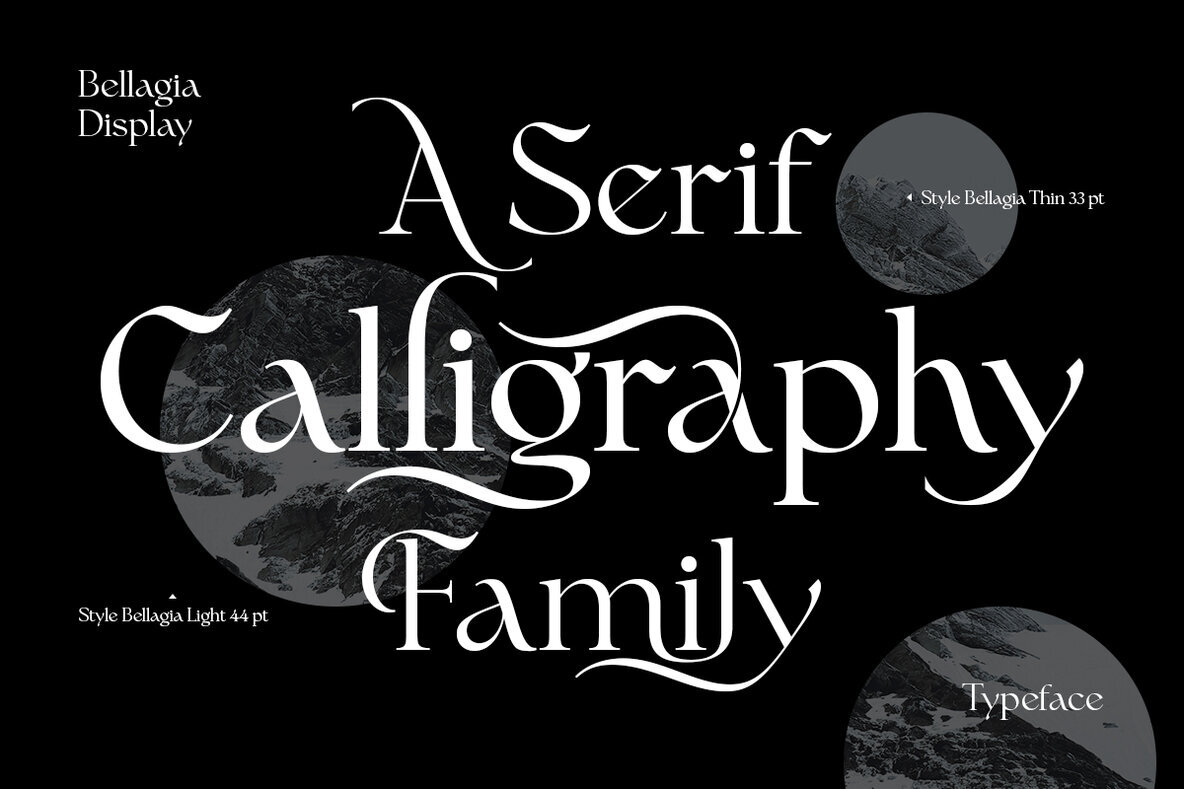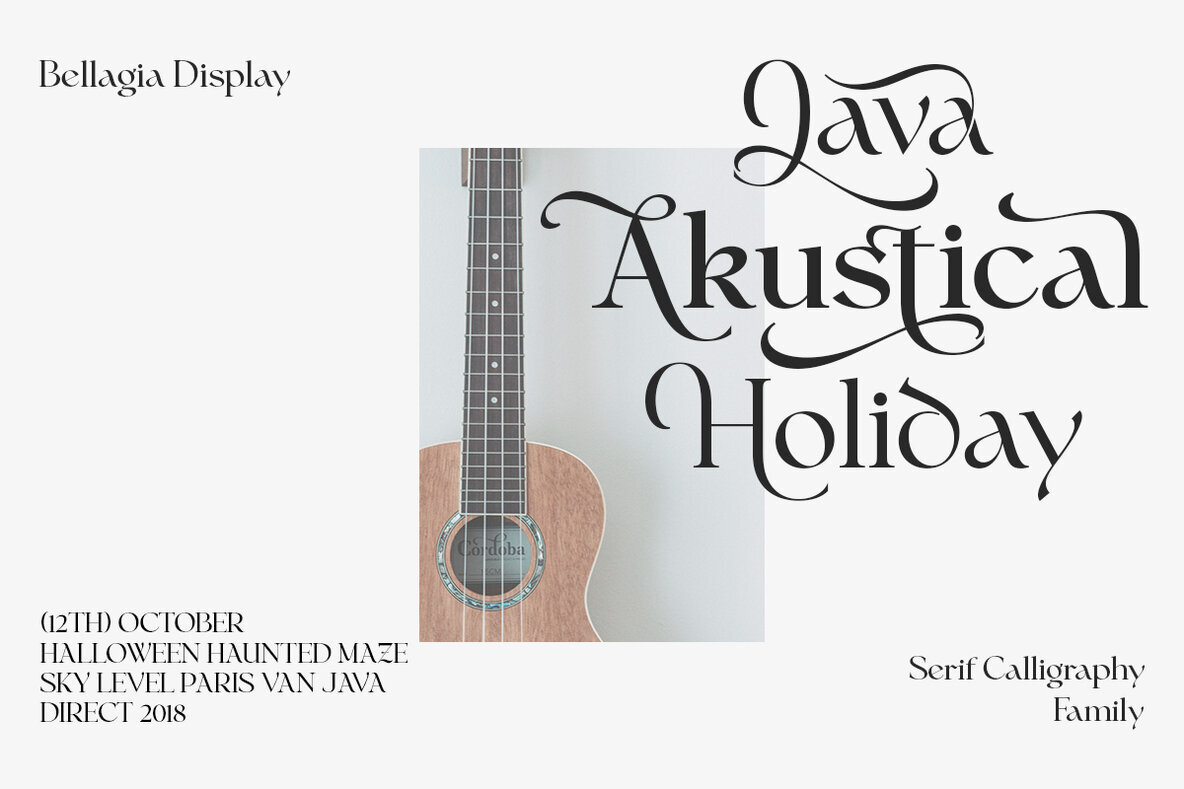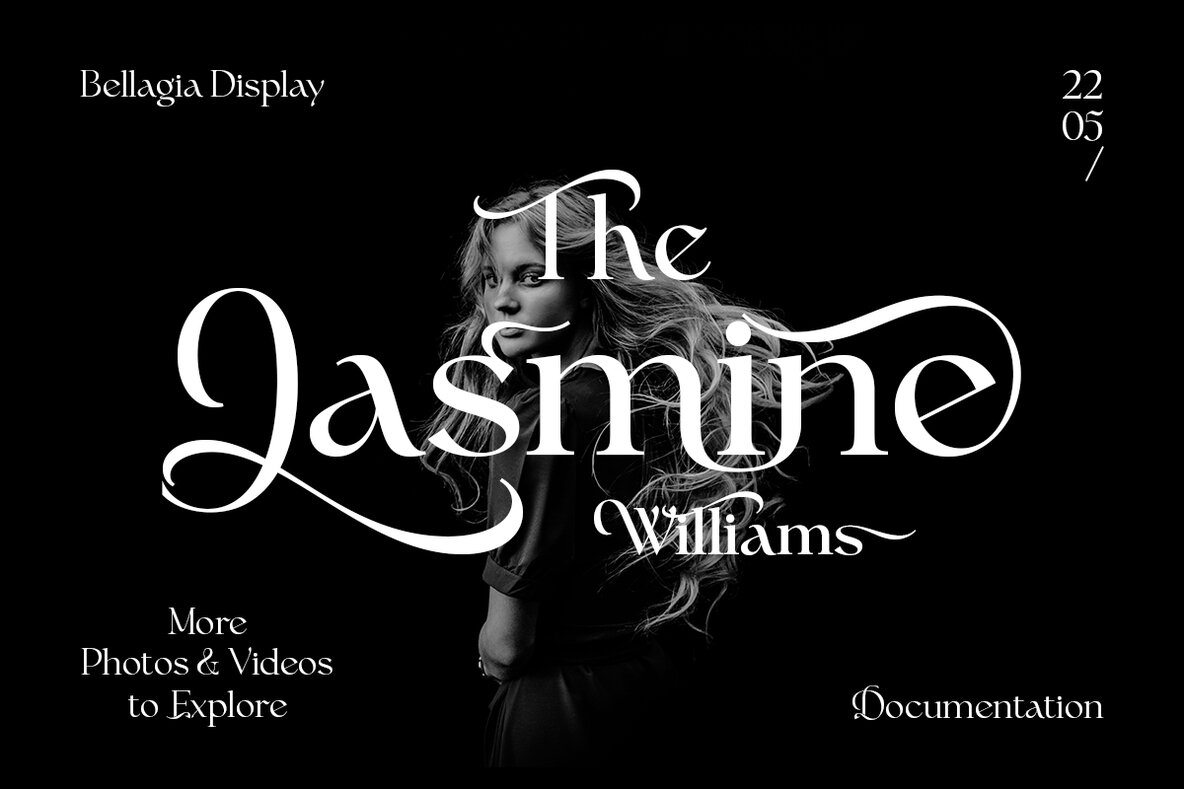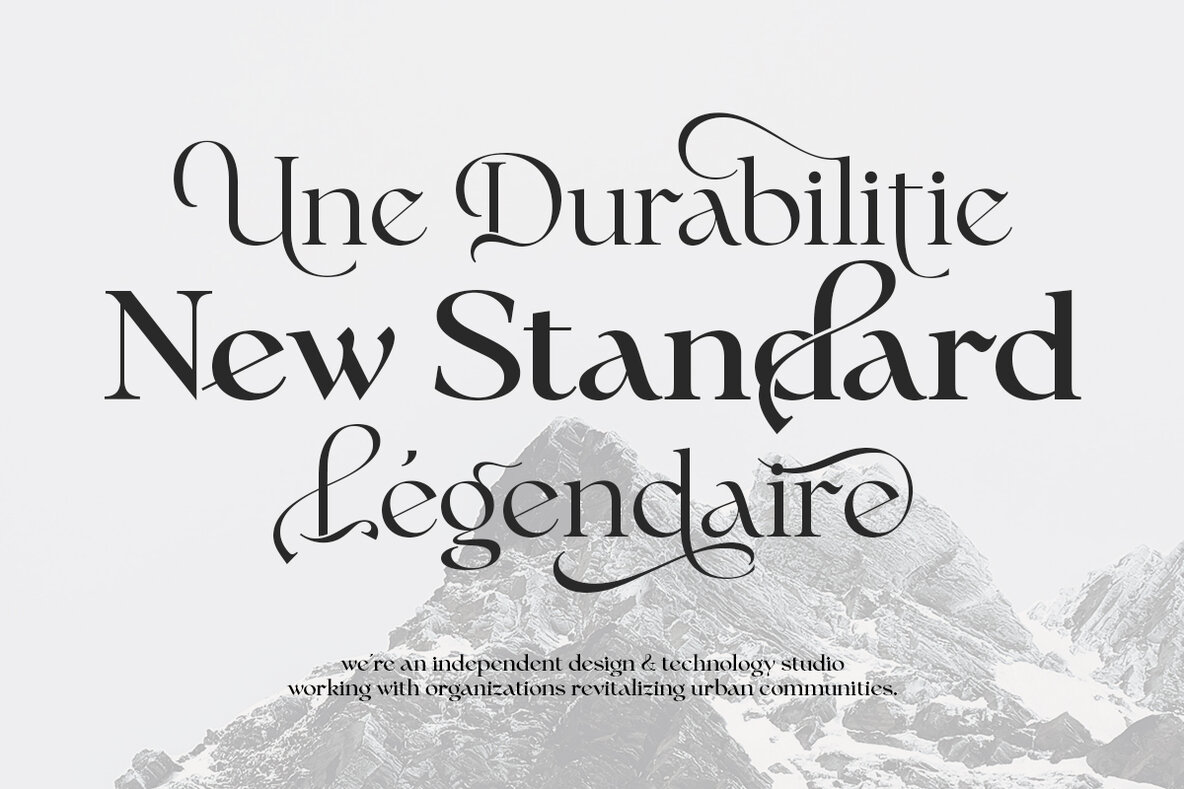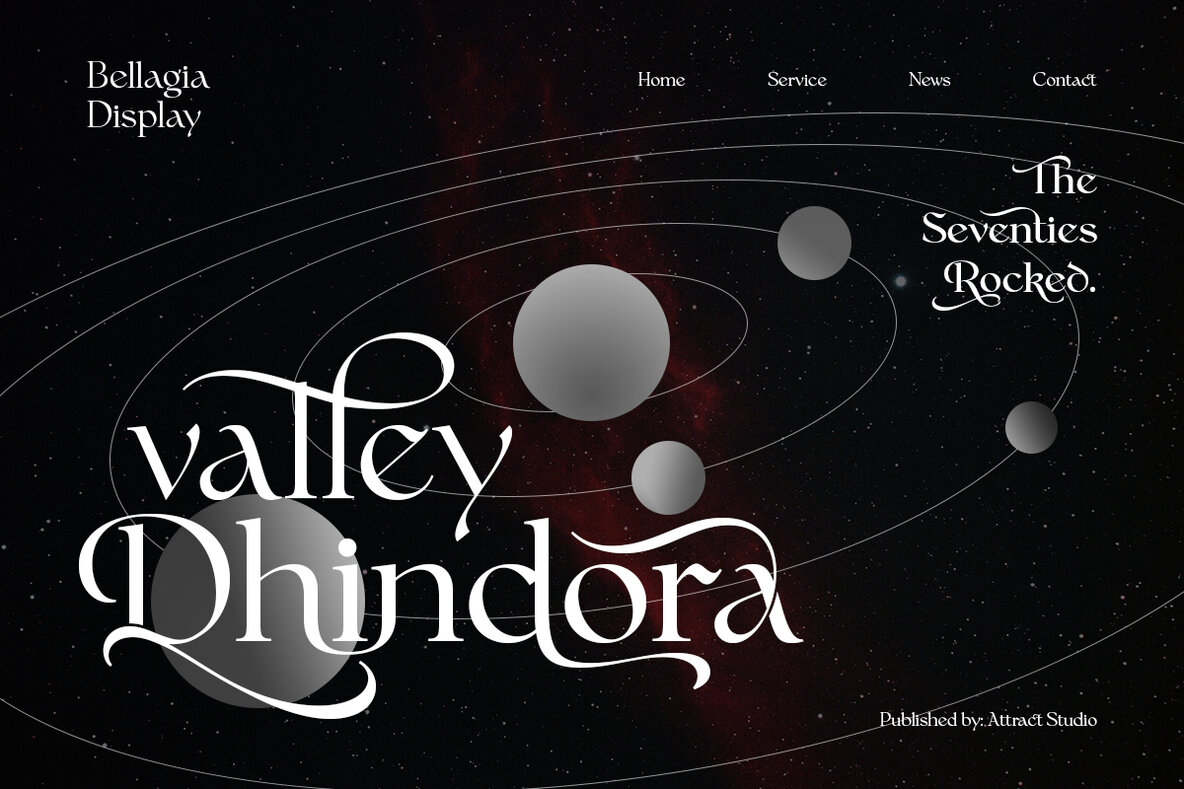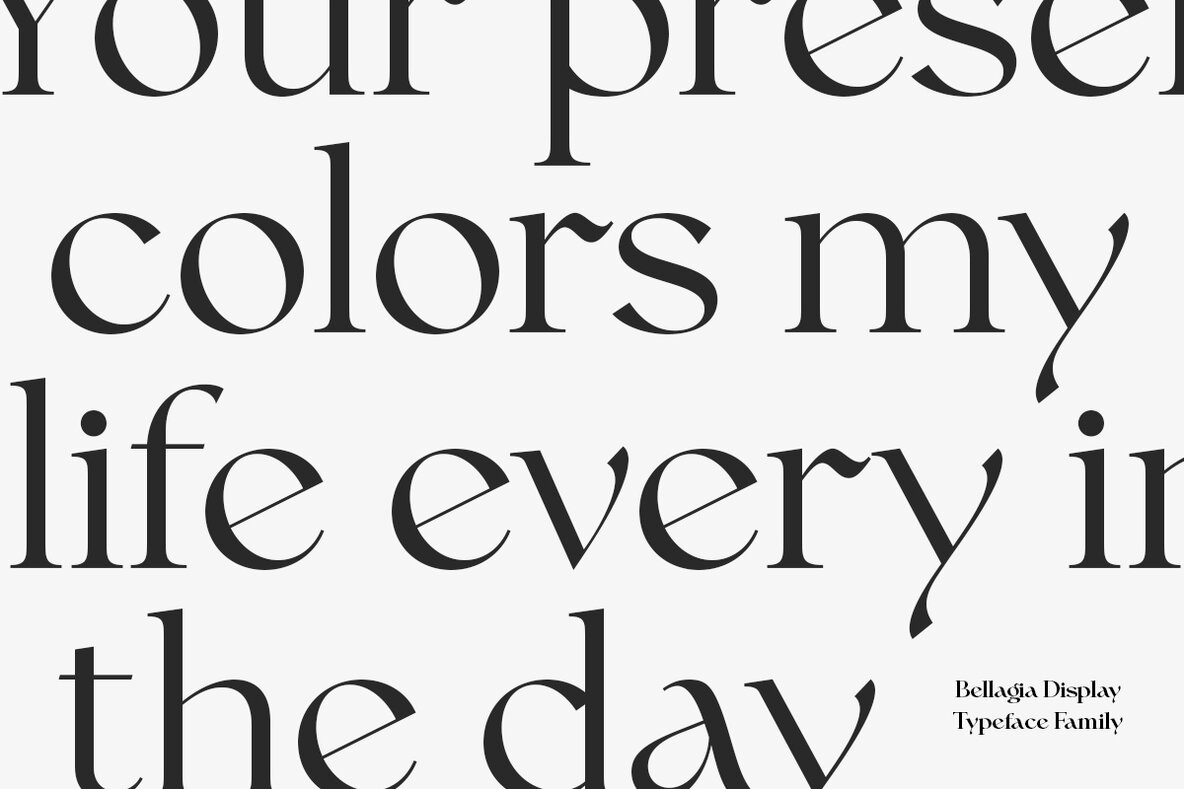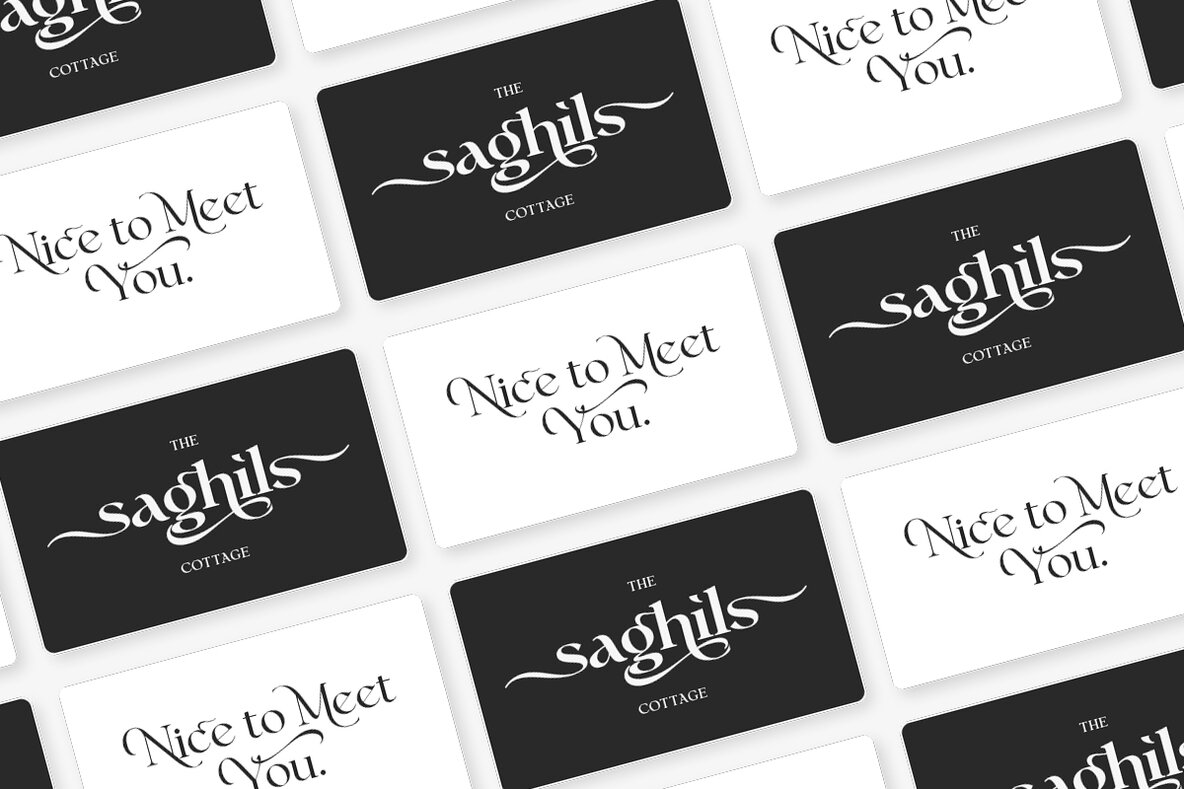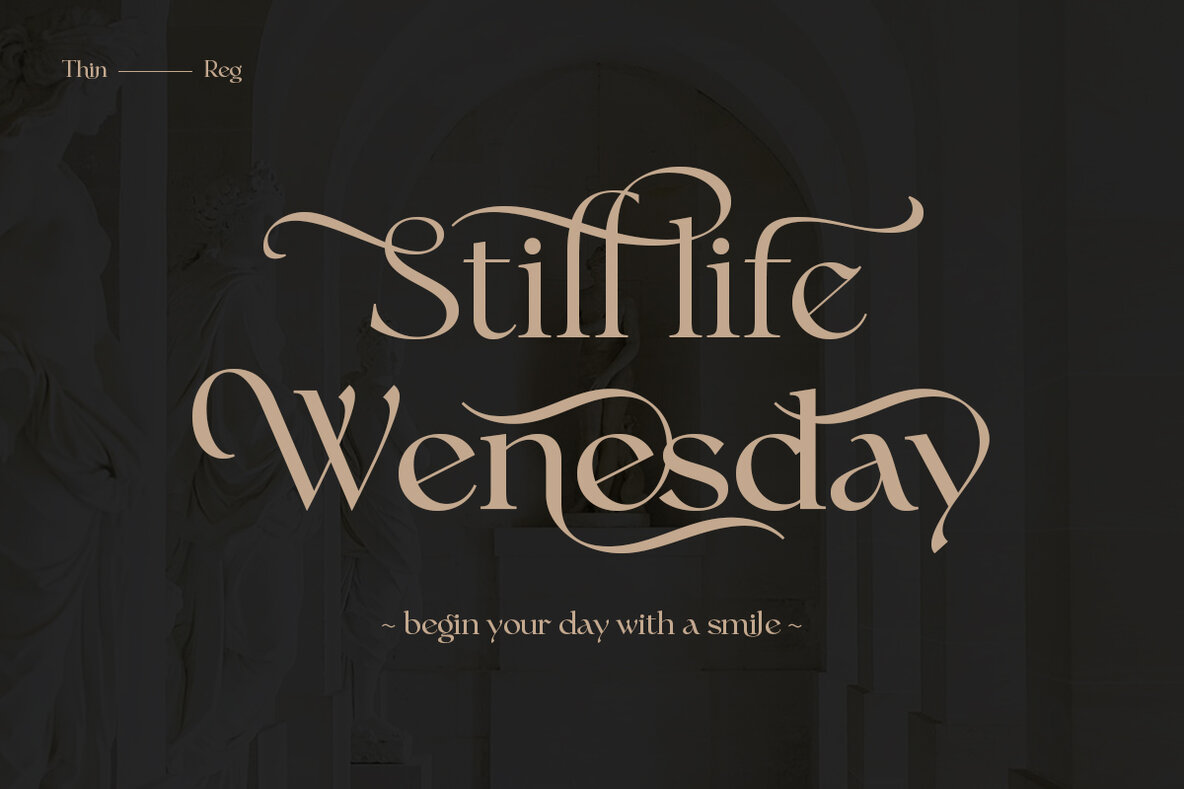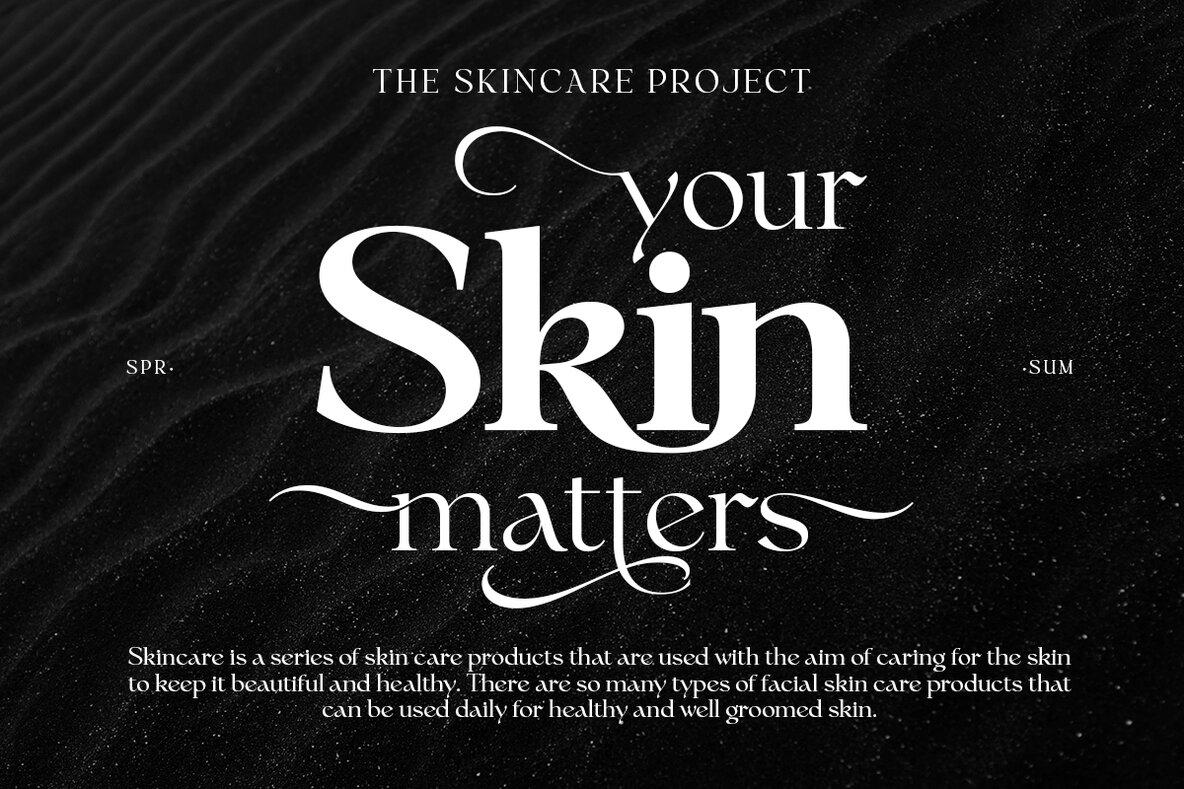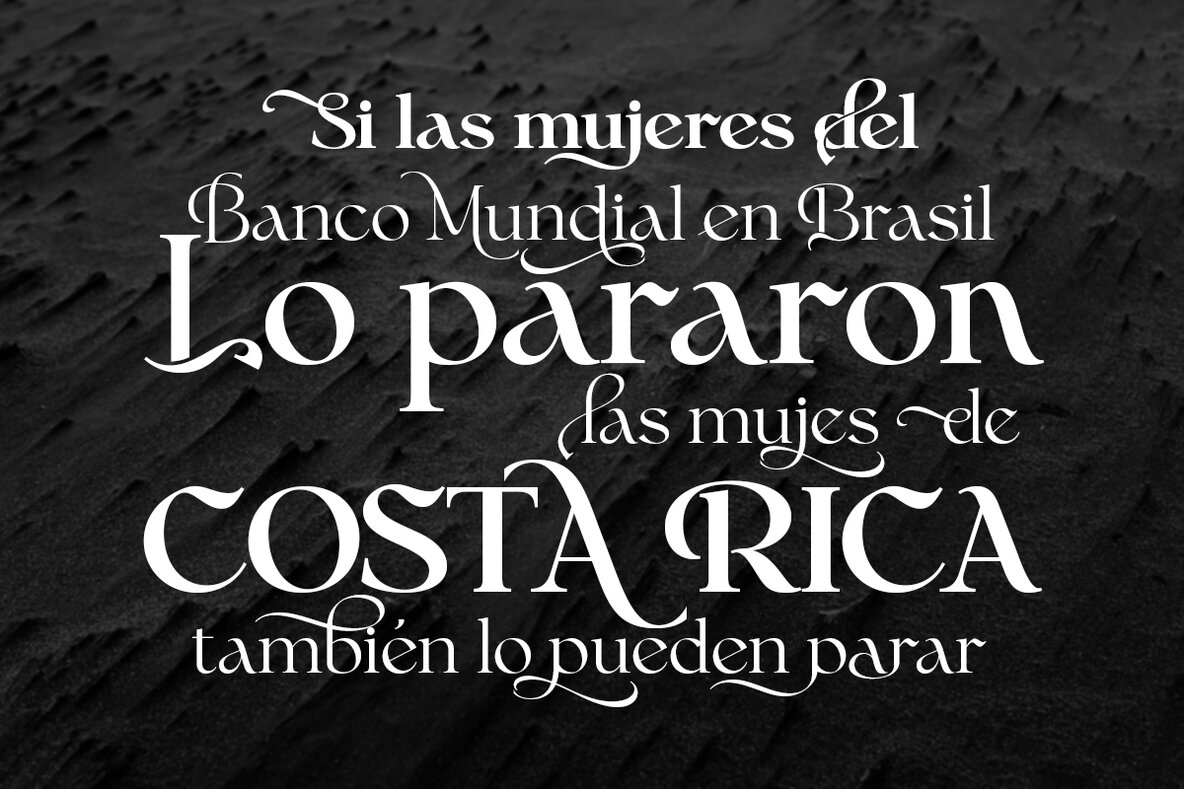
Bellagia Display Font
Bellagia Display is a blend of two hand calligraphy typefaces and vintage serifs with a natural bond consisting of 7 weights from Thin to Extra Bold.
All the wildcards and binders are specially designed to bring out the letters that are unique, and interesting. This makes it a very versatile font that works in both large and small sizes. Perfectly supports your creativity in making various design projects such as logo designs, branding, posters, magazines, labels, merchandise, invitations, long and short texts, and many of your other needs.
- 7 Weights (from Thin to Black)
- 1 Variable font
- Alternates & Ligatures